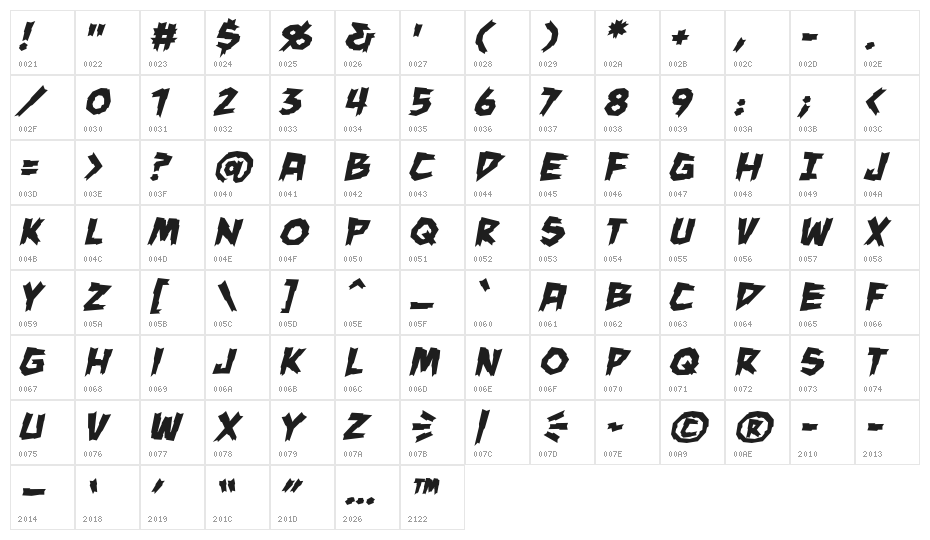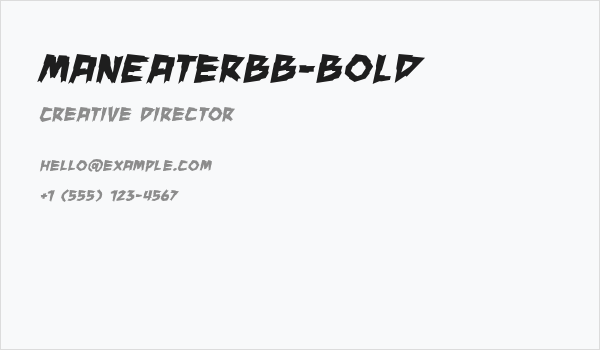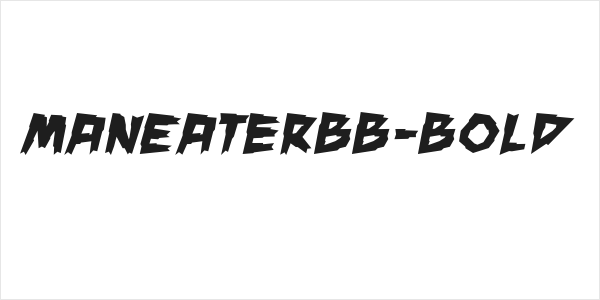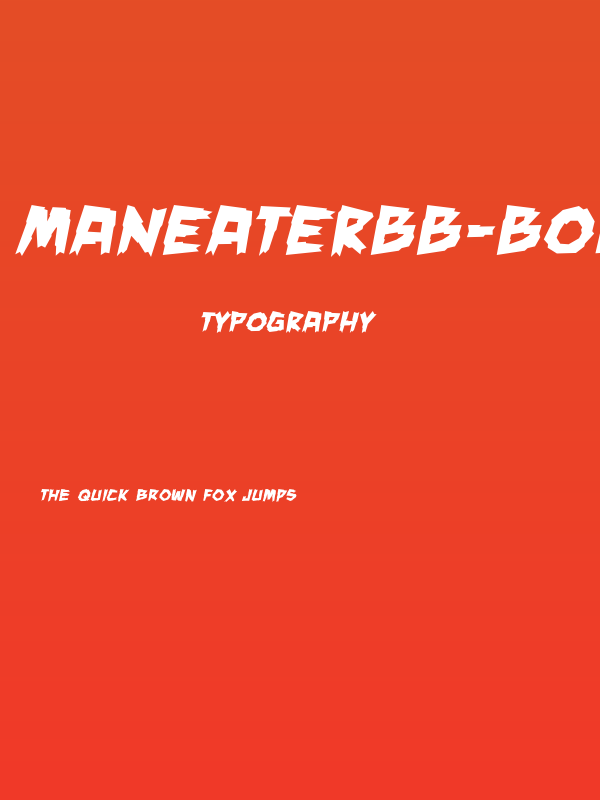
ManEaterBB-Bold Font
ManEaterBB-Bold Description
This font features a bold, jagged design with sharp, angular edges that give it a fierce and aggressive appearance. The characters are heavily stylized, with irregular shapes and a dynamic, energetic feel. The uppercase and lowercase letters maintain a consistent style, with the uppercase being more pronounced. Numbers and special characters follow the same edgy design, making the font suitable for attention-grabbing headlines or themes that require a bold statement. The overall impression is one of intensity and movement, making it ideal for projects that need a dramatic and impactful look.
| Proposed Projects | Ideal for horror movie posters, video game titles, Halloween-themed events, or any project requiring a dramatic and edgy look. |